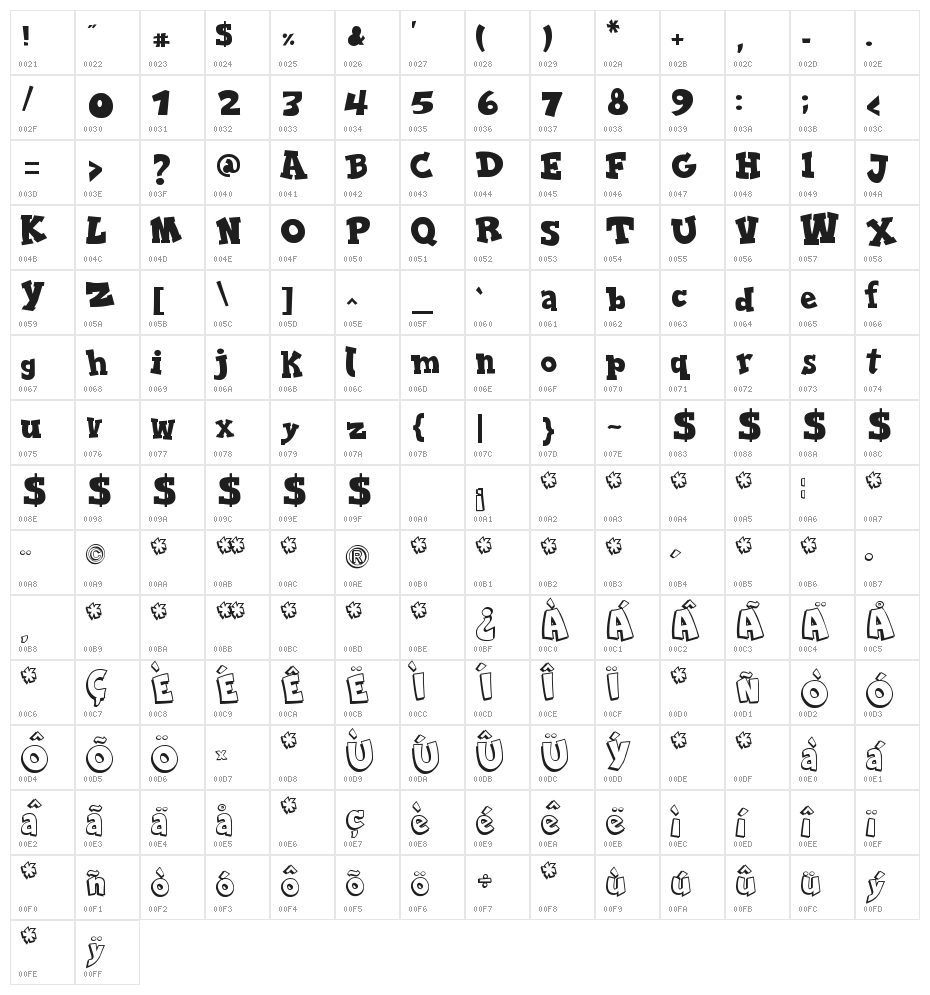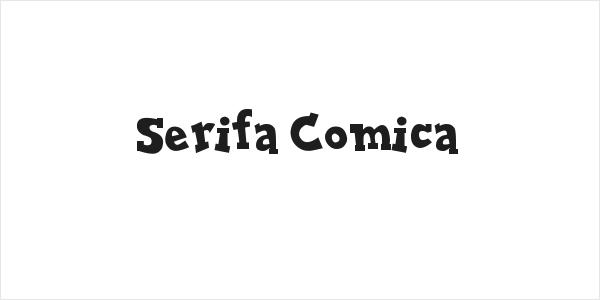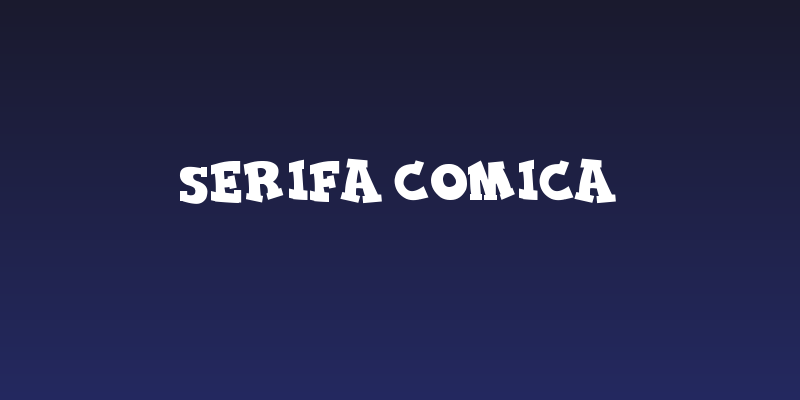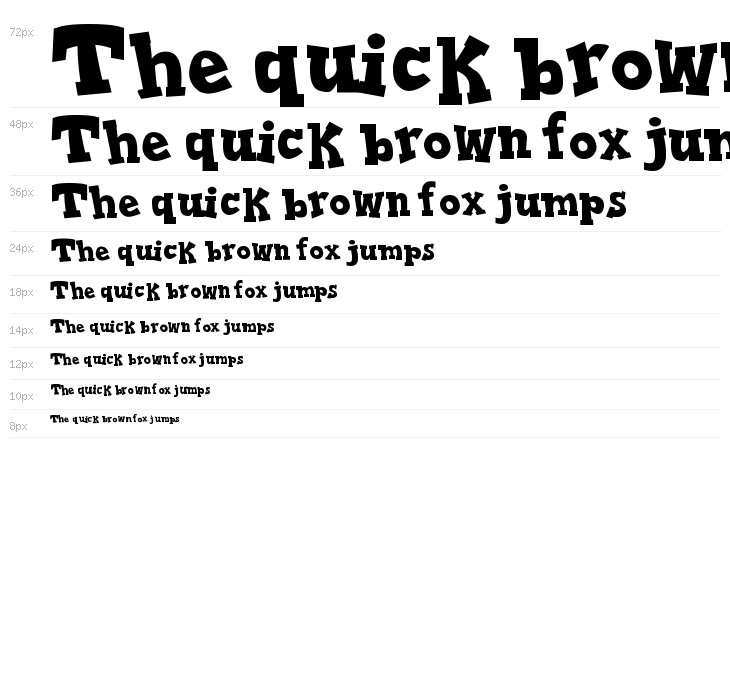
Serifa Comica Font
Serifa Comica Description
This playful and bold font features exaggerated, whimsical letterforms that convey a sense of fun and creativity. The characters are thick and rounded, with a slight tilt that adds to their dynamic appearance. The uppercase and lowercase letters maintain a consistent style, with a cartoonish flair that makes them stand out. Numbers and special characters are equally bold and expressive, ensuring a cohesive look across all text elements. The font's unique style is perfect for projects that require a touch of humor and personality.
| Overall Style | Playful, Cartoonish |
| Proposed Projects | Ideal for children's books, comic strips, playful branding, and creative posters. |